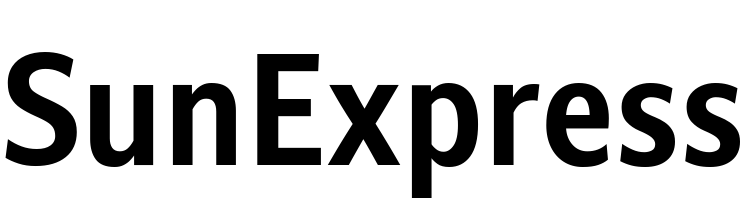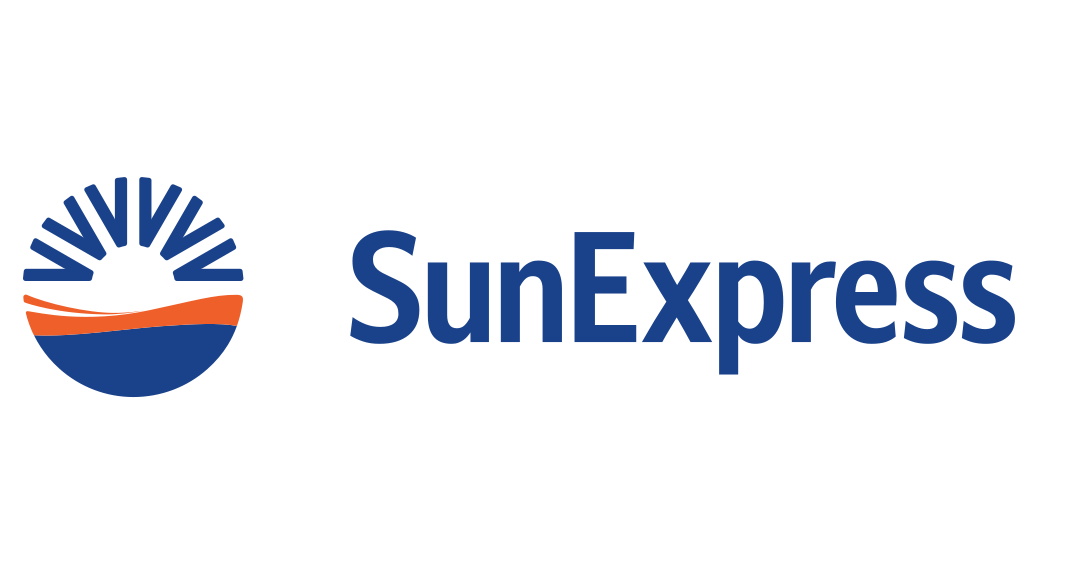
SunExpress Font
AirlineSunExpress is a Turkish airline that was founded in 1989 as a joint venture between Turkish Airlines and Lufthansa. It is based in Antalya, Turkey, and operates flights to over 100 destinations in Europe, the Middle East, and North Africa.
The SunExpress Airline logo is written in a font by Dalton Maag called Stroudley. The Stroudley typeface was originally built for signage, as the structural features were designed to maximize legibility and minimize space requirements.